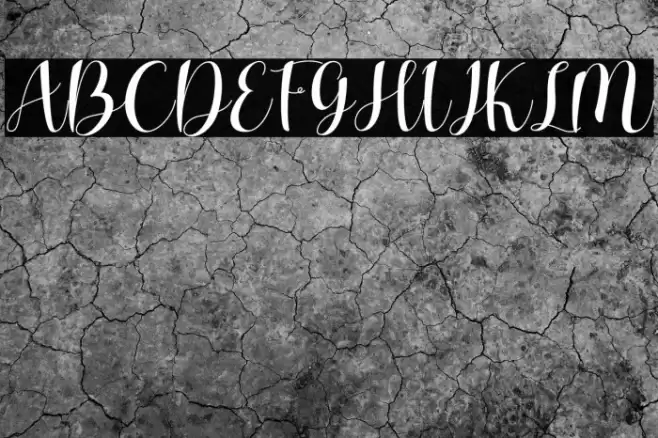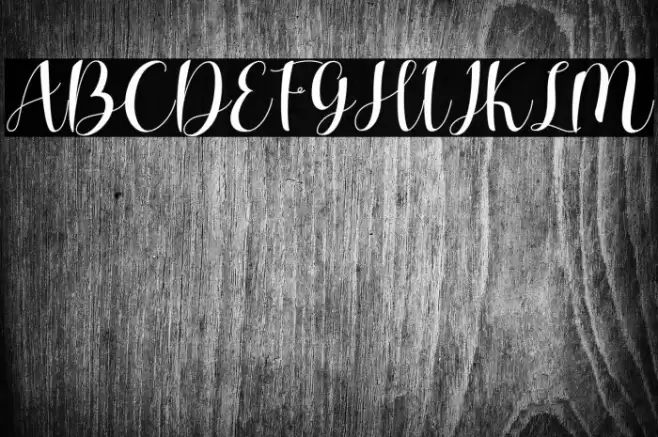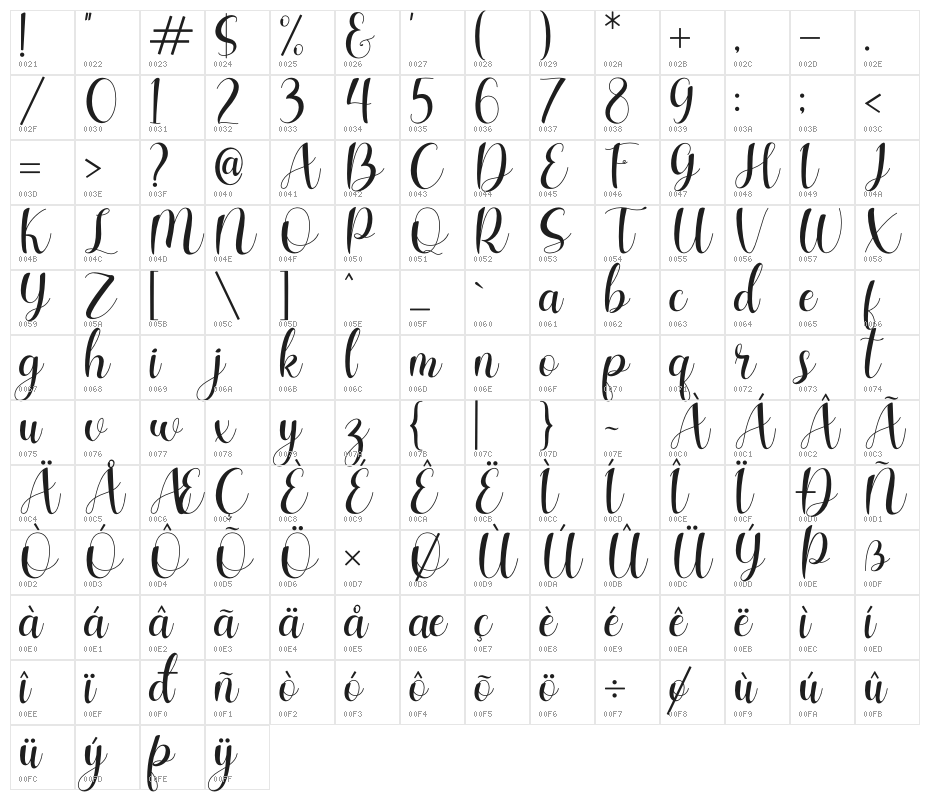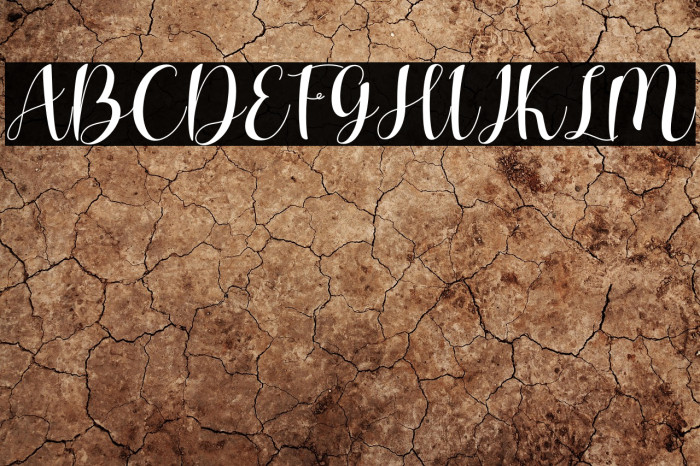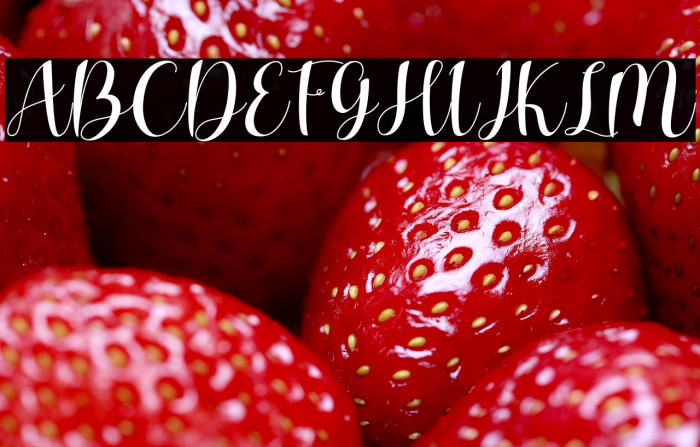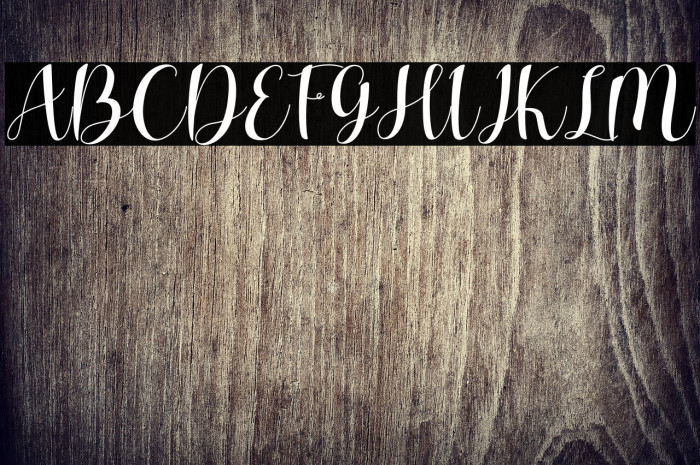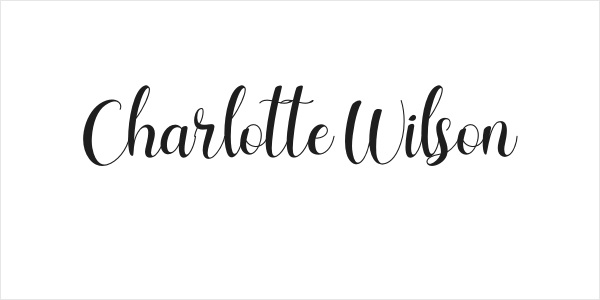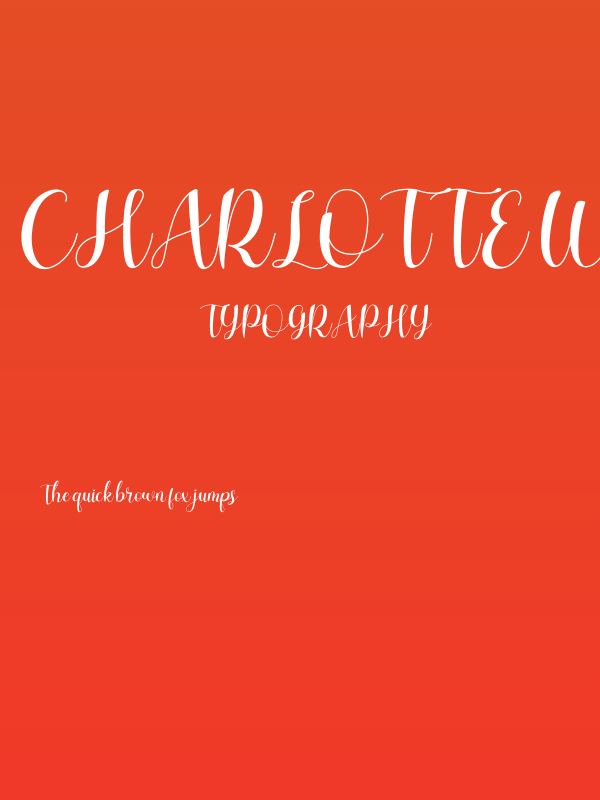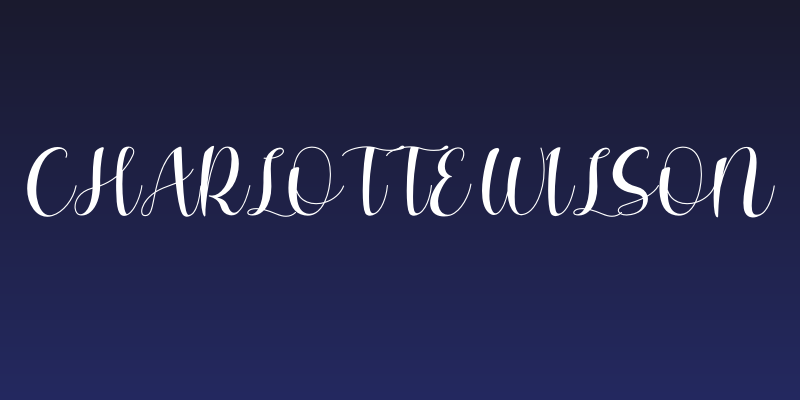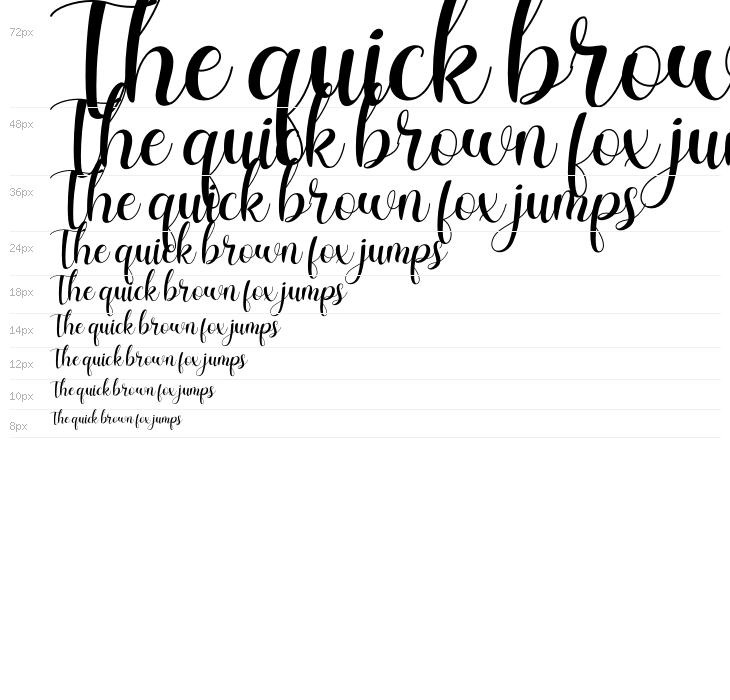
Charlotte Wilson Font
Charlotte Wilson Description
This font exudes elegance and sophistication with its flowing, cursive style. The characters are intricately designed, featuring smooth curves and delicate loops that give it a handwritten appearance. The uppercase letters are tall and graceful, while the lowercase letters maintain a consistent flow, enhancing readability. Numbers and special characters are crafted with the same attention to detail, ensuring a cohesive look across all text. This font is perfect for projects that require a personal touch, such as invitations, greeting cards, or branding materials. Its artistic flair makes it stand out, adding a touch of class to any design.
An elegant, cursive font with a handwritten style, perfect for sophisticated designs from Uncategorized fonts.
- Font: Charlotte Wilson
- Proposed Projects: Ideal for wedding invitations, greeting cards, branding, and elegant packaging.
- Overall Style: Elegant, Handwritten
- Use Case: Headlines, Invitations, Branding